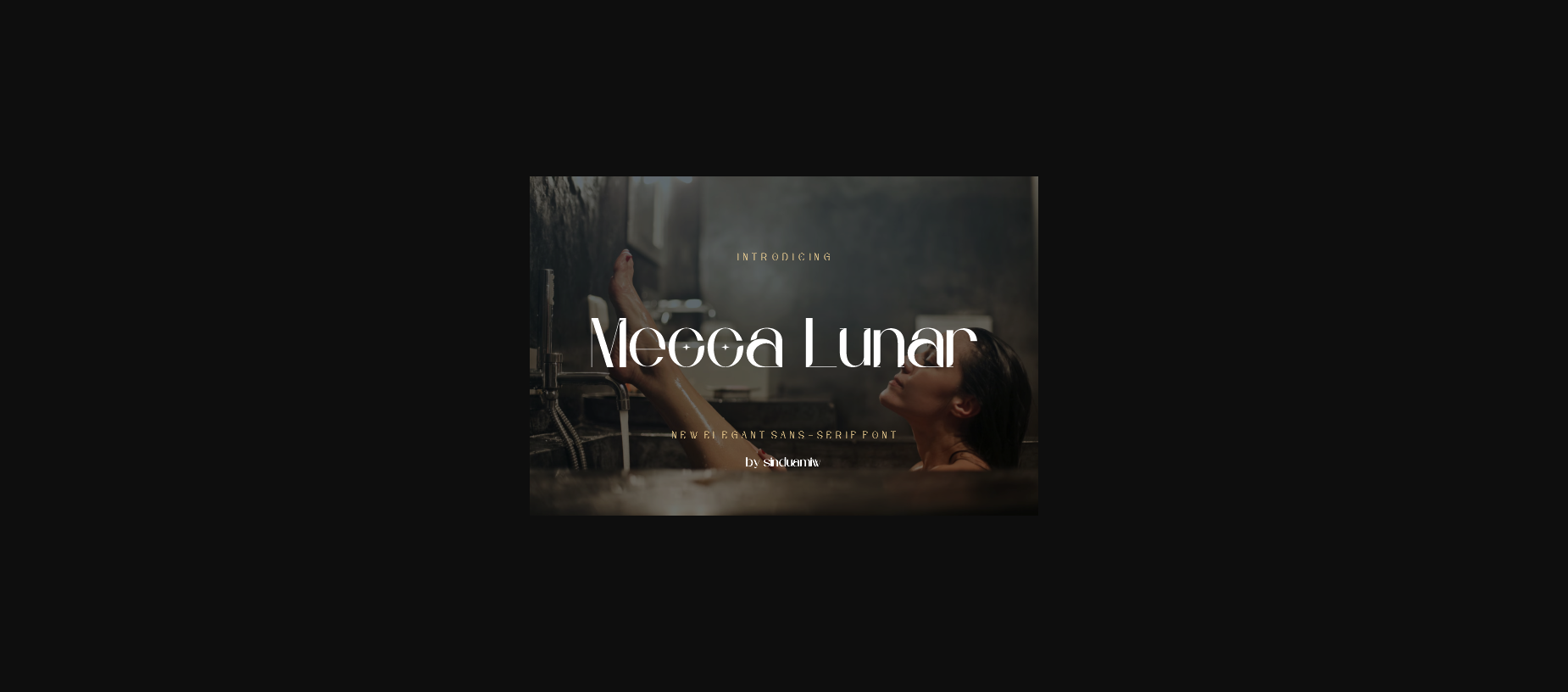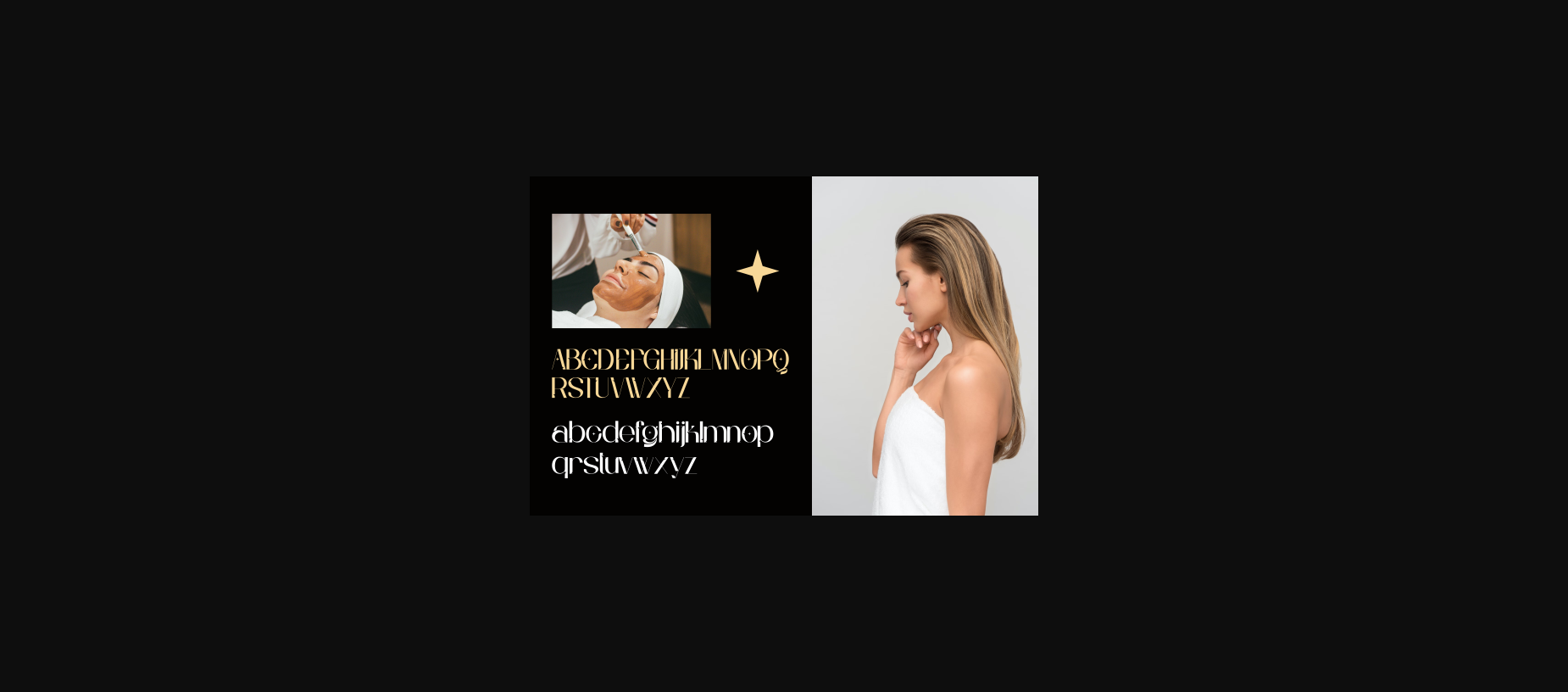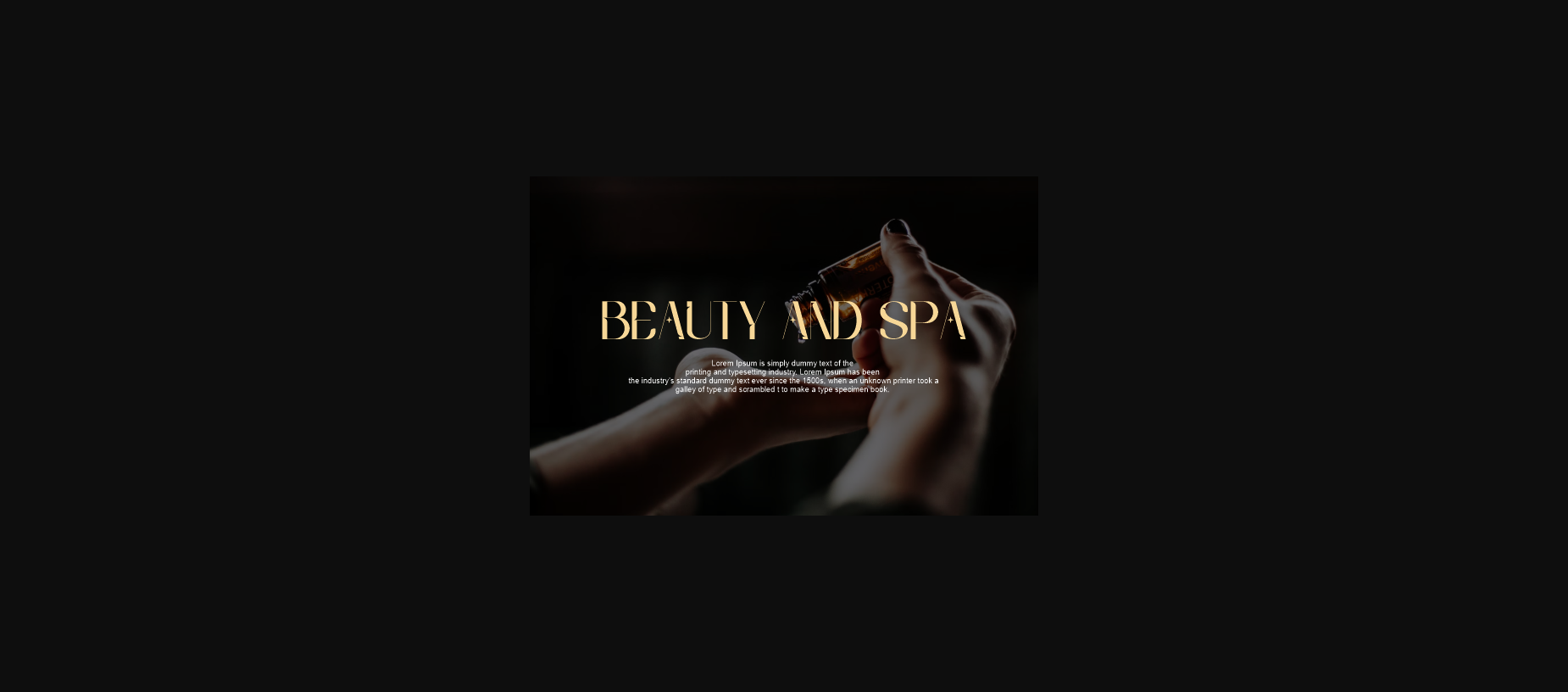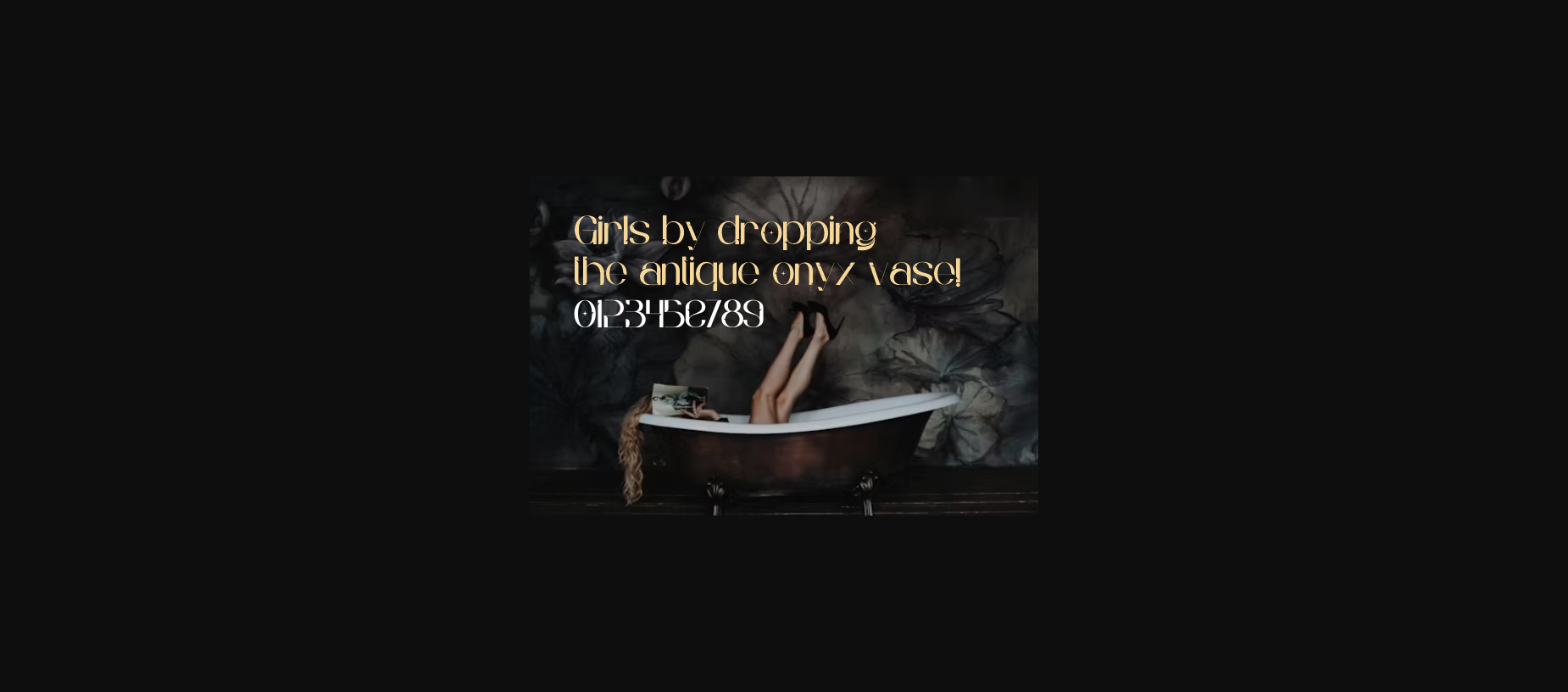
About Mecca Lunar Font
Mecca Lunar is a balanced and stylish sans-serif font that exudes contemporary sophistication. With clean lines and subtle curves, it offers clarity and elegance to any design project. Perfect for branding, editorial content, and modern layouts, Mecca Lunar strikes a harmonious balance between professionalism and creativity, ensuring visual appeal and readability.